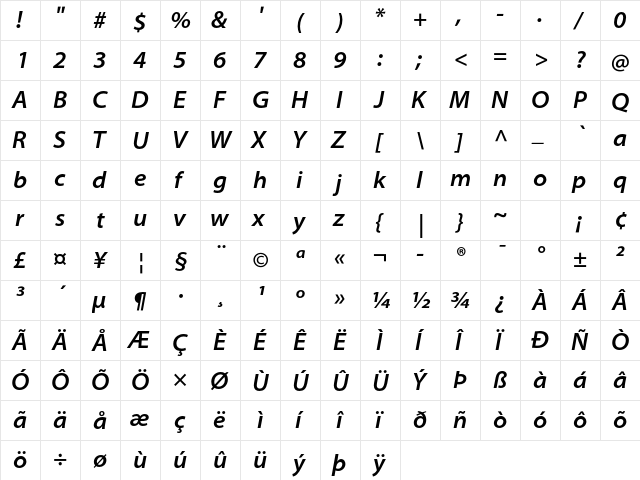
Myriad Pro Semibold SemiExtended Italic Font Preview
Myriad Pro Semibold SemiExtended Italic
Myriad Pro Semibold SemiExtended Italic Font Details
| Style | Semibold SemiExtended Italic |
| Designer | Robert Slimbach and Carol Twombly |
Design Context for Myriad Pro Typeface
Myriad Pro takes a measured approach to typography — its balanced proportions and neutral character make it a reliable workhorse for both digital and print work. Its italic angle brings a sense of urgency and motion to the letterforms. Its bold stroke weight gives it real presence on the page.
Pro Tip: Try Myriad Pro for annotation and caption copy alongside an upright companion — the contrast in angle creates a dynamic but ordered typographic system.